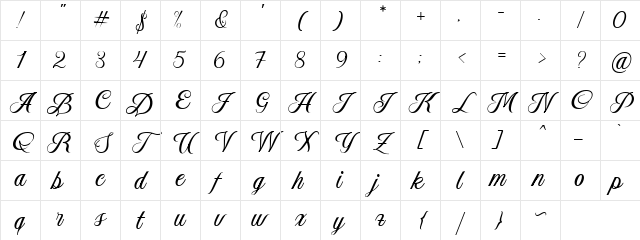
Aetrina Script Regular Free Font
Aetrina Script Regular
Foundry: Typetemp
Designer: Typetemp
Design Context for Aetrina Script
Aetrina Script flows with the natural rhythm of handwritten lettering, making it ideal for designs that call for warmth and personal expression.
Font Pairing: Combine Aetrina Script with a simple geometric sans for maximum contrast - the tension between flowing curves and clean structure is a classic typographic pairing.
Pro Tip: Use Aetrina Script for short runs of text - names, titles, or taglines. Extended body copy in script faces tires the eye quickly.